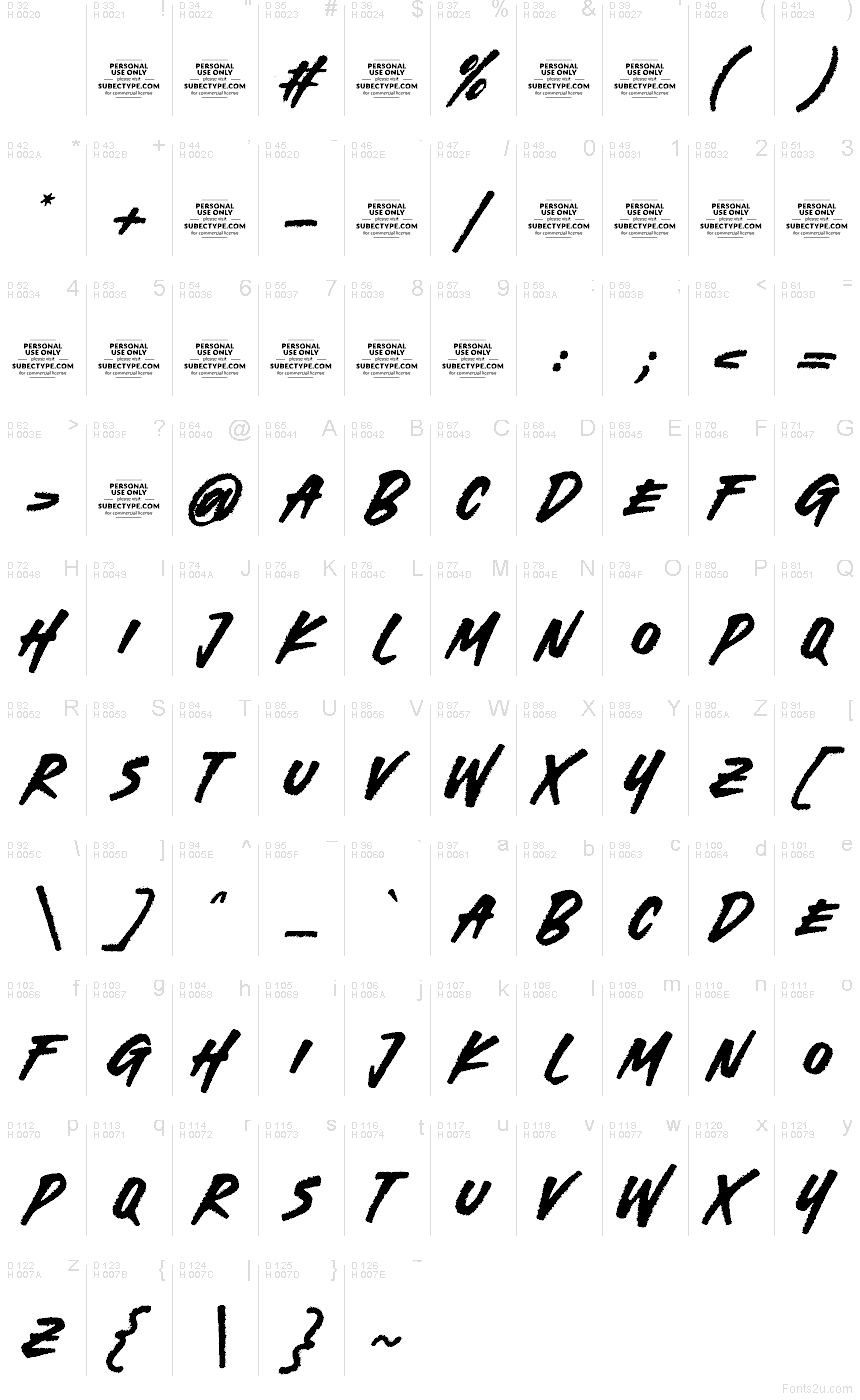
White Shadows font by Subectype is a free brush typeface with a raw, hand-scrawled energy that feels like wet paint dragged fast across a wall. The letters slash forward with sharp angles and rough, grainy edges, giving every word a sense of motion and attitude. It’s bold, noisy, and a little unruly-in the best possible way.
Using White Shadows, you can push intensity in streetwear branding, album covers, sports posters, YouTube thumbnails, skate or graffiti-themed flyers, and punchy social media graphics. This free font shines when it’s big and loud, with slightly tightened spacing to amp up the impact. For supporting text, pair it with a clean, simple sans serif to let the gritty brushstrokes stay in the spotlight.